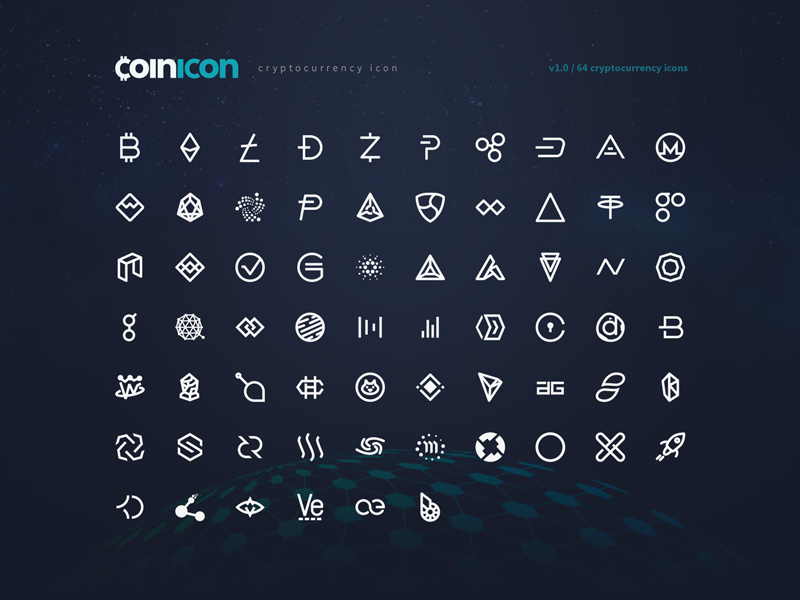
coinicon - Cryptocurrency Icon Fonts & CSS Bundle - Open Source
Introducing: coinicon
coinicon is a simplified version of cryptocurrency logo and icon. All of these icons are my personal reinterpretation of the actual logo without changing any essential part of the visual, and keeping the icon identifiable as it is.